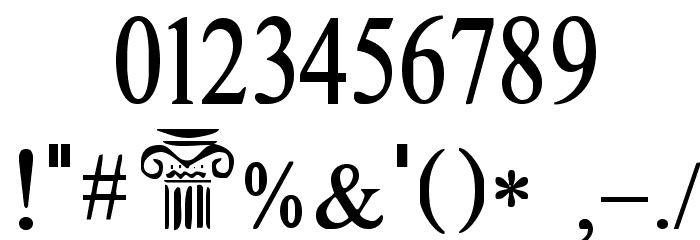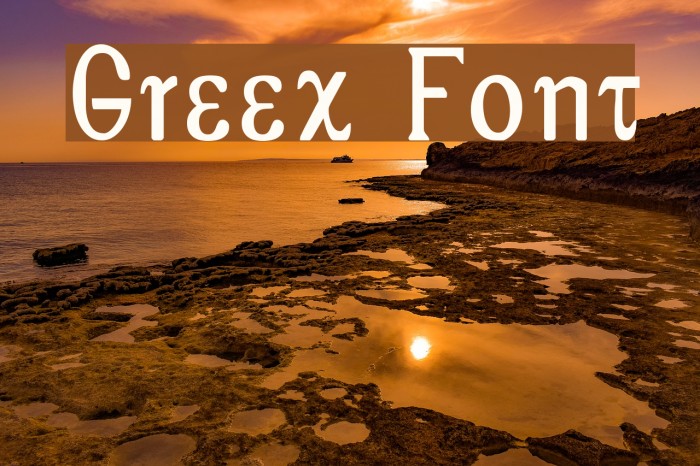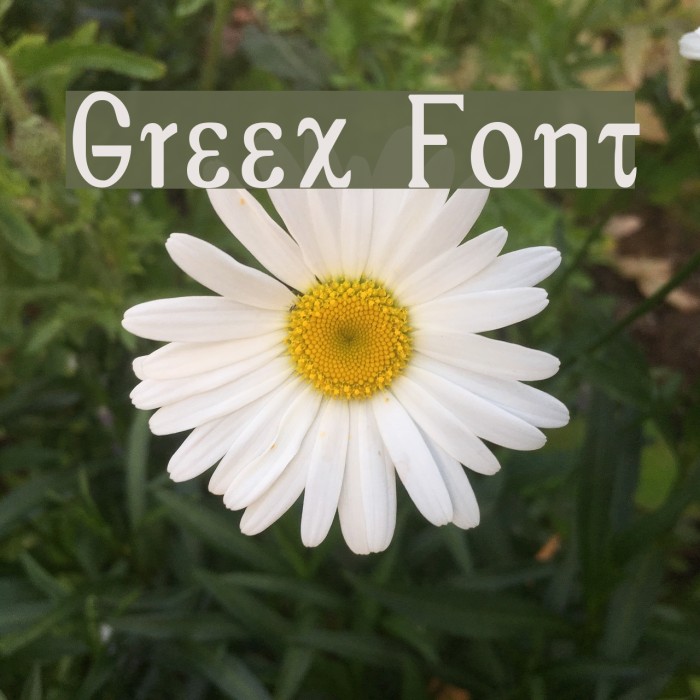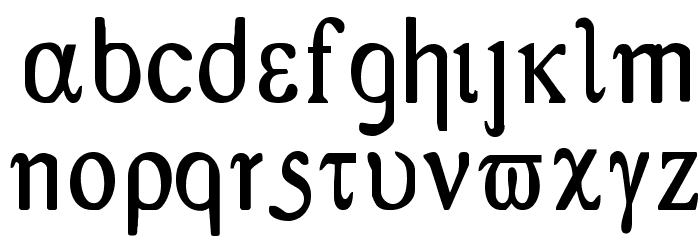
Greex Font
Greex Description
This font features a unique blend of classical and modern elements, characterized by its distinct serifs and elegant curves. The uppercase letters exhibit a strong presence with their bold and slightly condensed forms, while the lowercase letters maintain a harmonious flow with subtle variations in stroke width. The numerals are well-proportioned, complementing the overall aesthetic. Special characters are thoughtfully designed, adding a touch of sophistication. The font's style is reminiscent of ancient Greek influences, making it suitable for projects that require a historical or cultural touch.
| Width | Condensed |
| Overall Style | Classic |